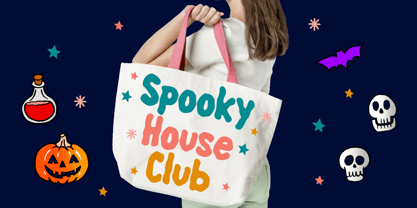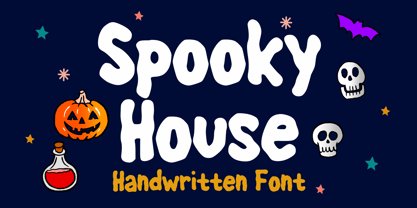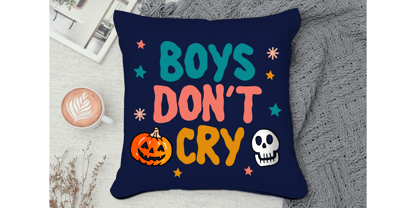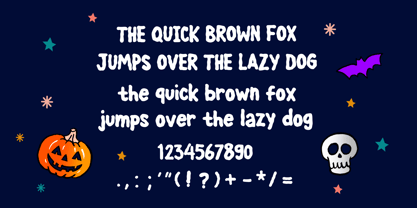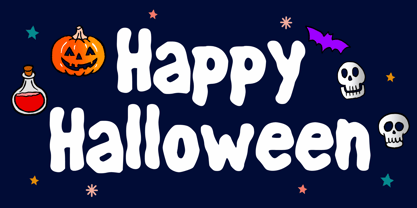
Spooky House
by Mvmet
The Spooky House Font Family was designed by Gabriel Valentinus and published by Mvmet. Spooky House contains 1 styles. More about this family
Spooky House is a playful, fun, and cute Halloween hand-drawn font that is also kid-friendly, making it ideal for all your horror and Halloween-themed projects. This versatile font is perfect for a wide range of applications, including merchandise like t-shirts and clothing, children's scary book designs, Halloween party decorations, greeting cards, stickers, posters, and banners. Whether you need a whimsical horror vibe or a magical touch, Spooky House adds a delightful flair to any creative endeavor.
Designers: Gabriel Valentinus
Foundry: Mvmet